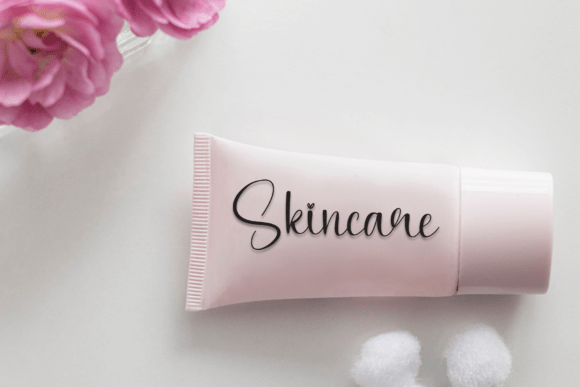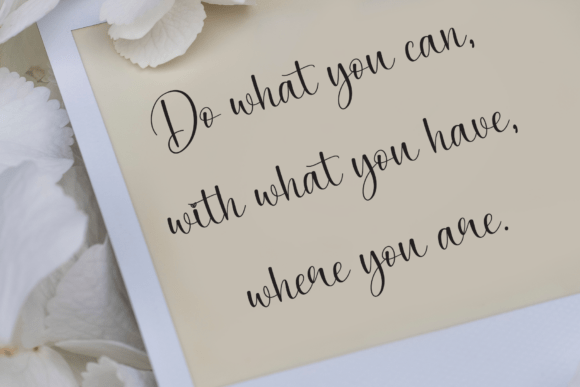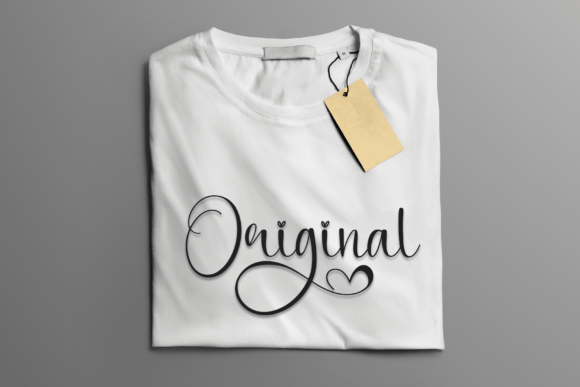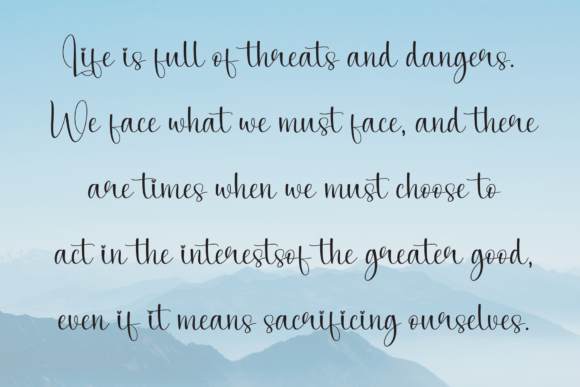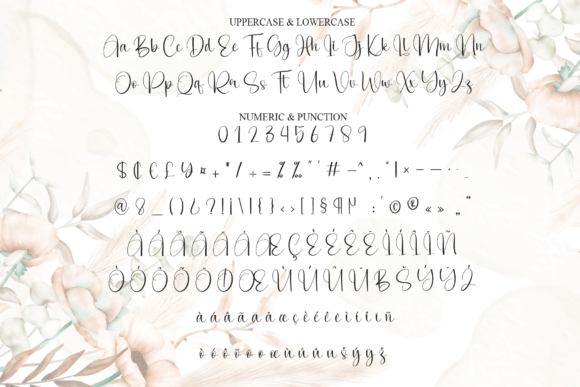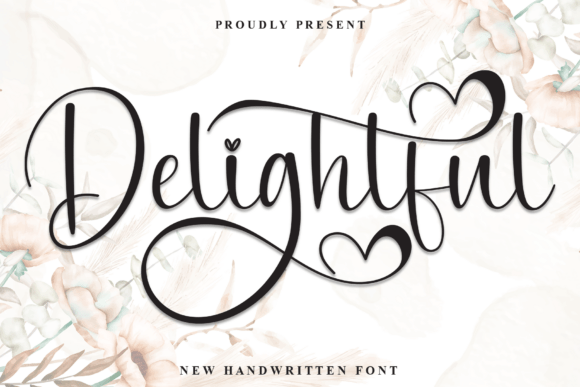
Add a Touch of Sophistication to Your Designs with Delightful Font
Are you looking for a font that can elevate your designs to the next level? Do you want to create romantic and luxurious visuals that leave a lasting impression? Look no further than the Delightful Font, an elegant script font that is perfect for designers and crafters who want to add a touch of sophistication to their work.
What is Delightful Font?
Delightful Font is a beautiful, elegant script font that is designed to add a touch of luxury and romance to your designs. With its graceful, flowing curves and stylish swashes, this font is perfect for creating wedding invitations, branding projects, social media graphics, and handwritten quotes that look effortlessly refined and custom-made.
Key Features of Delightful Font
So, what makes Delightful Font so special? Here are some of its key features:
- Beautiful Beginning and Ending Swashes: Delightful Font features beautiful beginning and ending swashes that add an extra flourish to your designs. These swashes can be used to create stunning titles, headings, and quotes that look like they were written by hand.
- Stylish Curves and Decorative Alternates: The font’s stylish curves and decorative alternates make every word look effortlessly refined and custom-made. Whether you’re creating a wedding invitation or a social media graphic, Delightful Font is sure to impress.
- Perfect for Romantic and Luxurious Designs: Delightful Font is designed to create romantic and luxurious visuals that are perfect for wedding invitations, branding projects, and social media graphics.
Uses of Delightful Font
Delightful Font is a versatile font that can be used for a variety of design projects, including:
- Wedding Invitations: Create stunning wedding invitations that set the tone for the big day. Delightful Font’s elegant script and beautiful swashes make it perfect for wedding stationery.
- Branding Projects: Add a touch of luxury and sophistication to your branding projects with Delightful Font. Use it to create logos, business cards, and letterheads that look high-end and professional.
- Social Media Graphics: Create eye-catching social media graphics that stand out from the crowd. Delightful Font’s stylish curves and decorative alternates make it perfect for creating engaging and shareable content.
- Handwritten Quotes: Add a touch of elegance to your handwritten quotes with Delightful Font. Use it to create beautiful quotes that look like they were written by hand.
Why Choose Delightful Font?
So, why should you choose Delightful Font for your design projects? Here are just a few reasons:
- Unique and Elegant Design: Delightful Font features a unique and elegant design that sets it apart from other script fonts. Its beautiful swashes and stylish curves make it perfect for creating romantic and luxurious visuals.
- High-Quality Design: Delightful Font is designed to high standards, ensuring that it looks great in any design project. Whether you’re creating a wedding invitation or a social media graphic, Delightful Font is sure to impress.
In conclusion, Delightful Font is a beautiful, elegant script font that is perfect for designers and crafters who want to add a touch of sophistication to their work. With its beautiful beginning and ending swashes, stylish curves, and decorative alternates, this font is sure to impress. Whether you’re creating a wedding invitation, branding project, social media graphic, or handwritten quote, Delightful Font is the perfect choice.